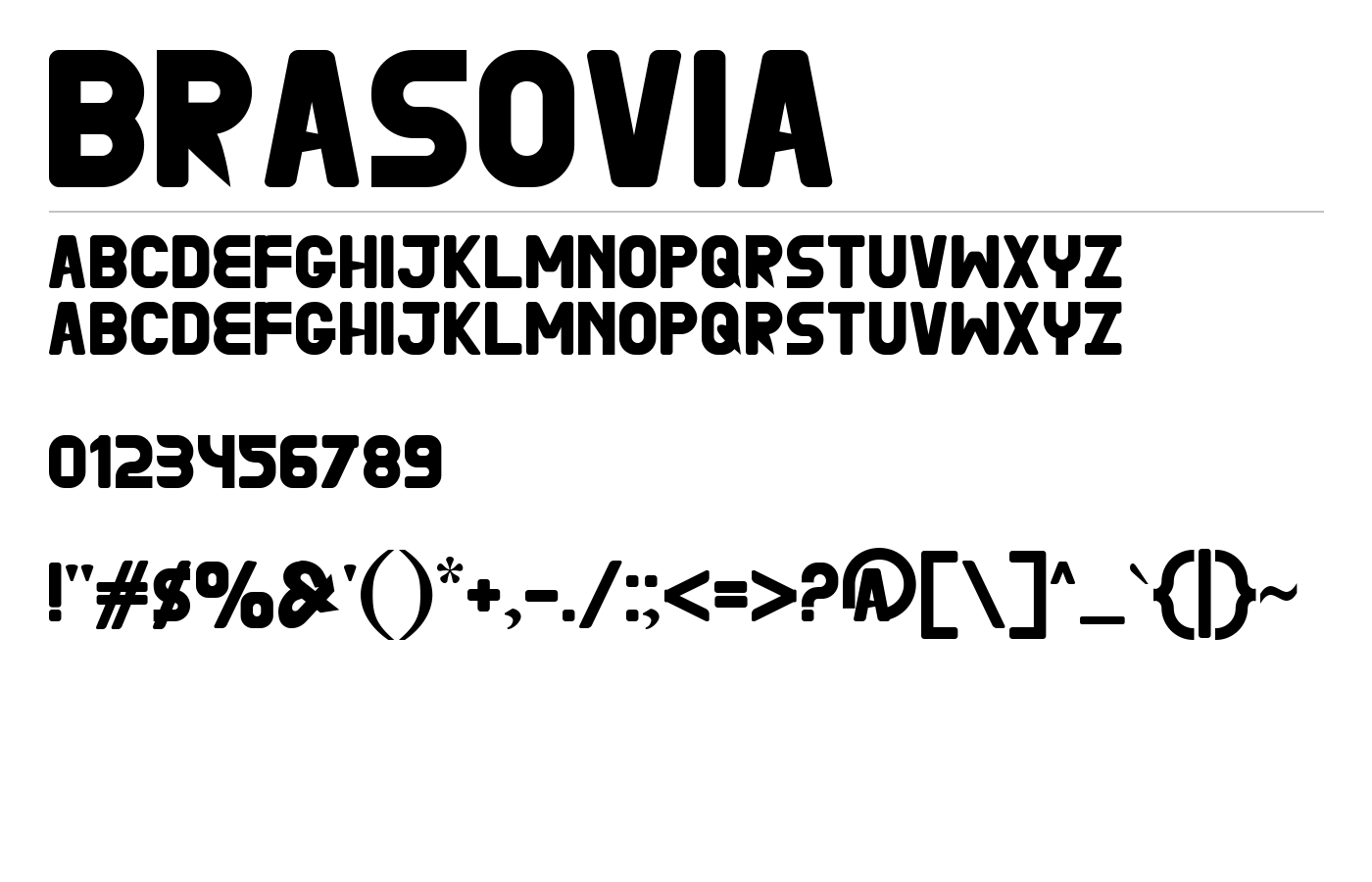
Brasovia is a bold, condensed sans serif font with a strong, modern presence and a slightly playful touch, thanks to its unique angular cuts and rounded terminals. Its high x-height and sturdy weight make it excellent for impactful headlines, logos, and branding projects that seek a confident yet approachable look. This font is well suited for designs in technology, sports, and contemporary fashion where clarity and character are key.
BRASOVIA Font
About BRASOVIA Font
| Font family | BRASOVIA Font |
| Designer | Afif Hidayat Alhabsi |